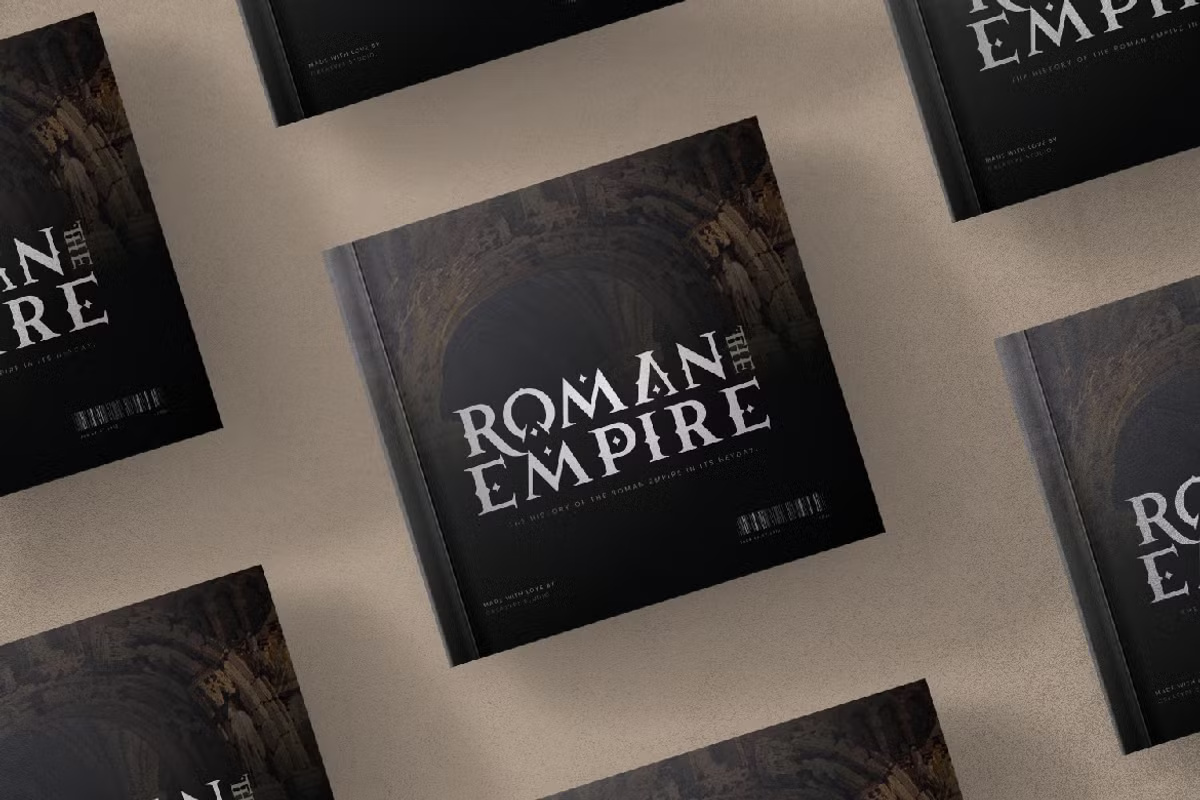
Kingvoon is a modern serif font with a contemporary appeal. Designed with meticulous attention to detail, this font is both stylish and incredibly easy to work with.
Inspired by the mind-bending aesthetics of 1965 and the renowned Psychedelic movement, Kingvoon brings a bold, artistic touch to your designs, making it ideal for large projects.
This font is particularly well-suited for branding, logos, wedding invitations, social media, advertisements, product packaging, labels, photography, watermarks, stationery, and any project that benefits from a handcrafted feel.